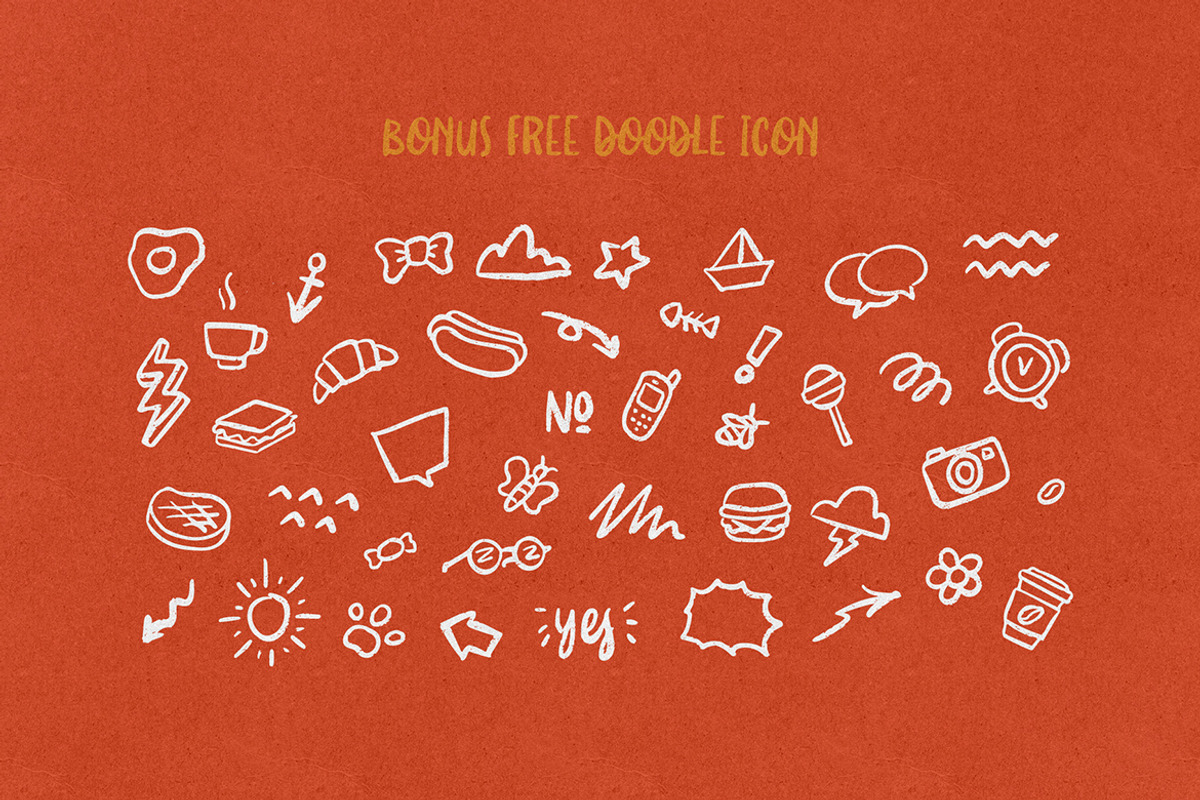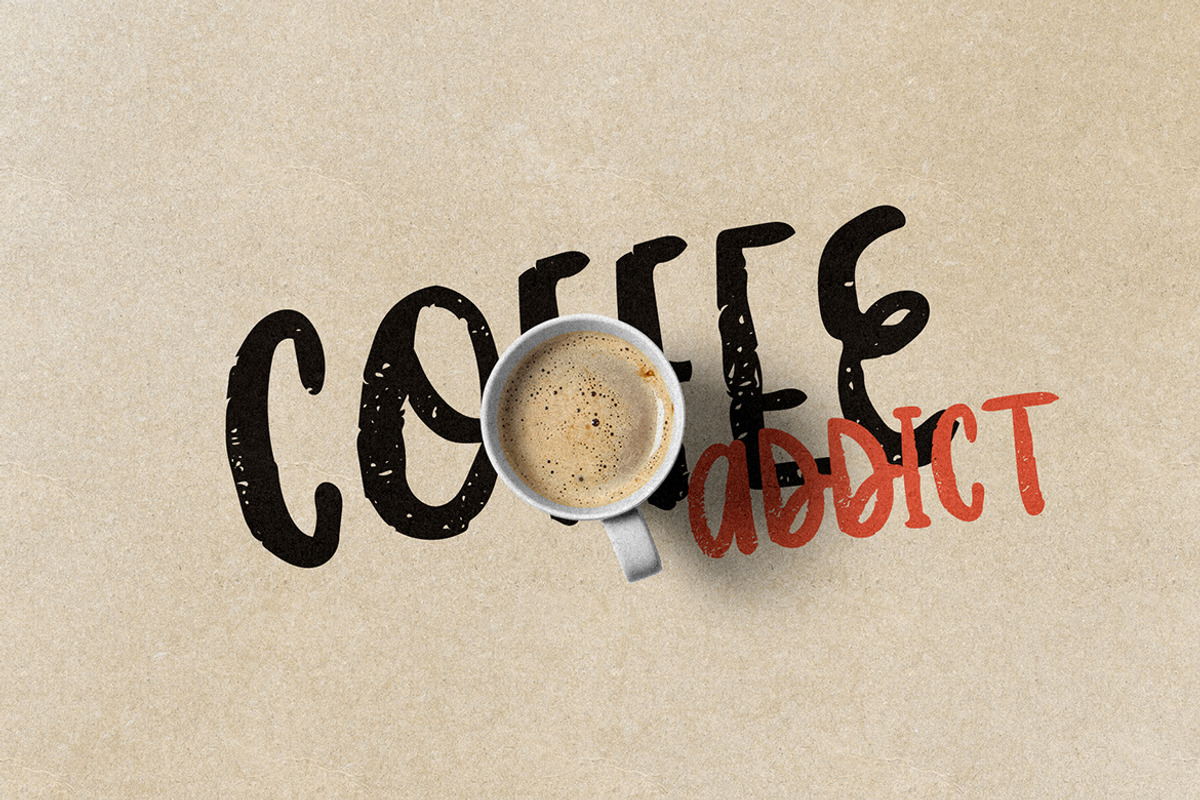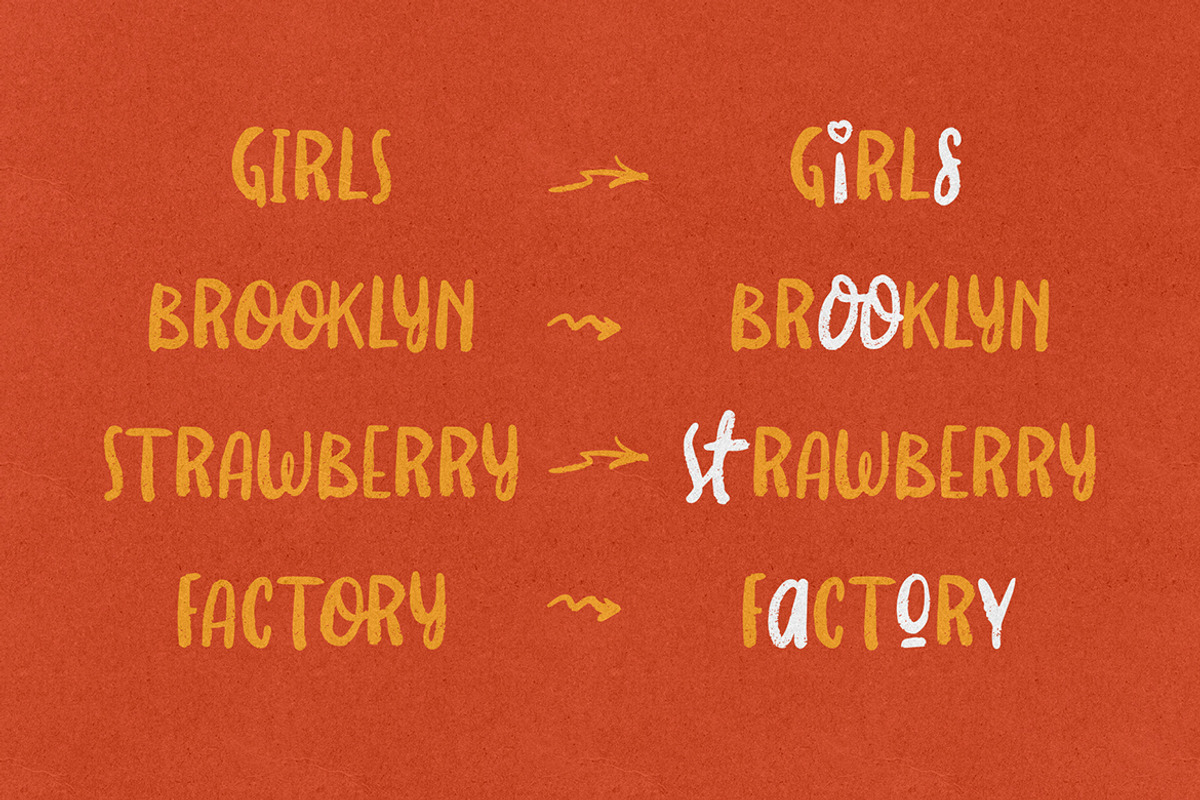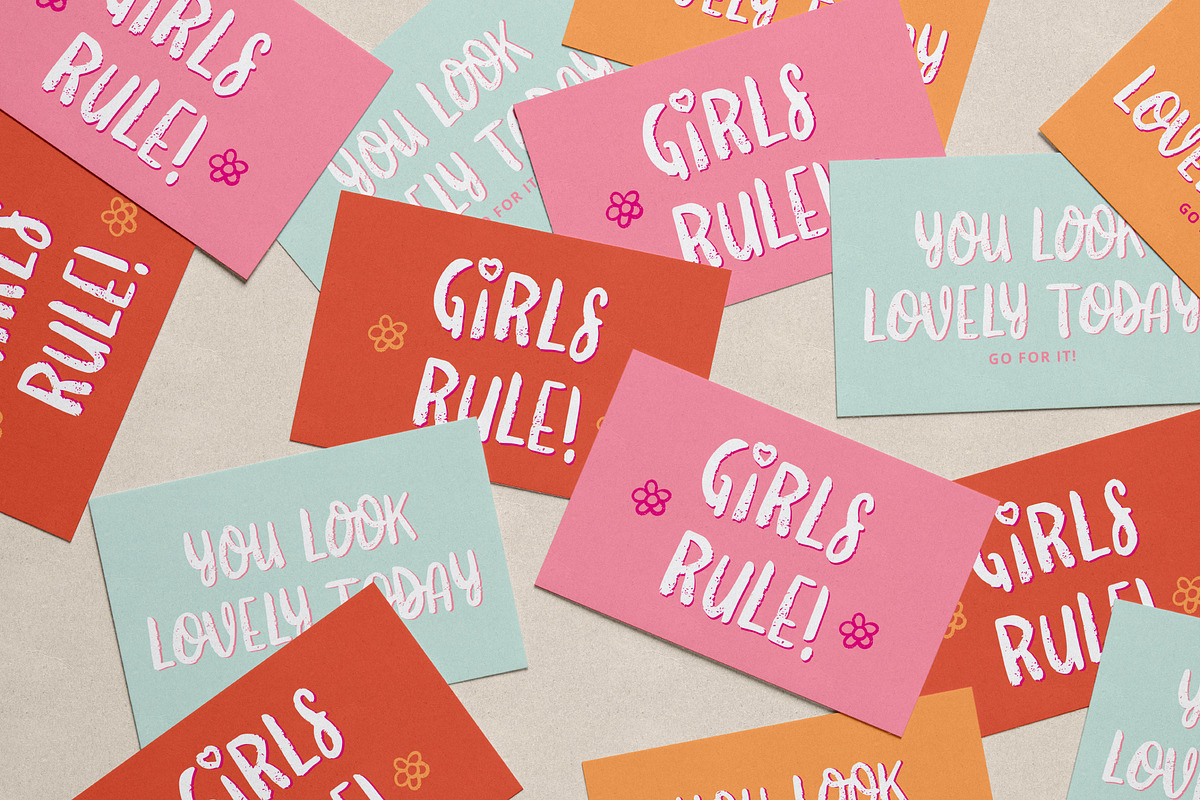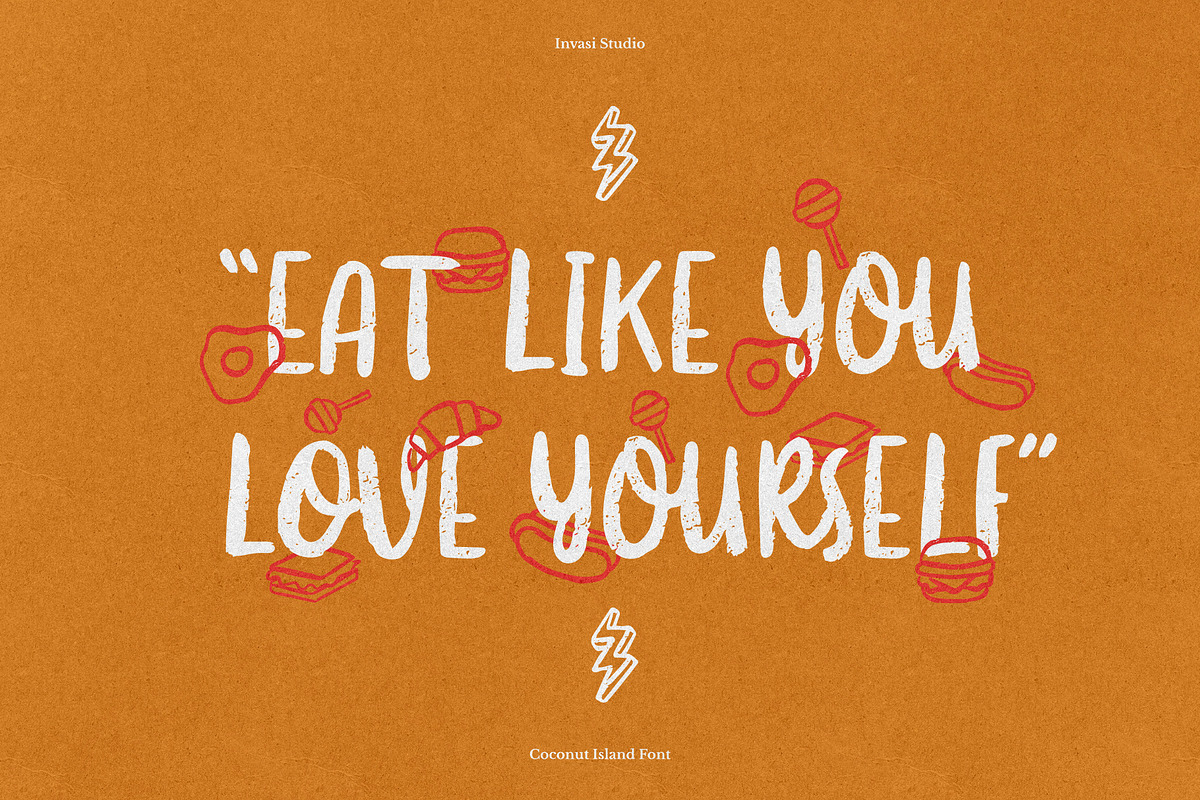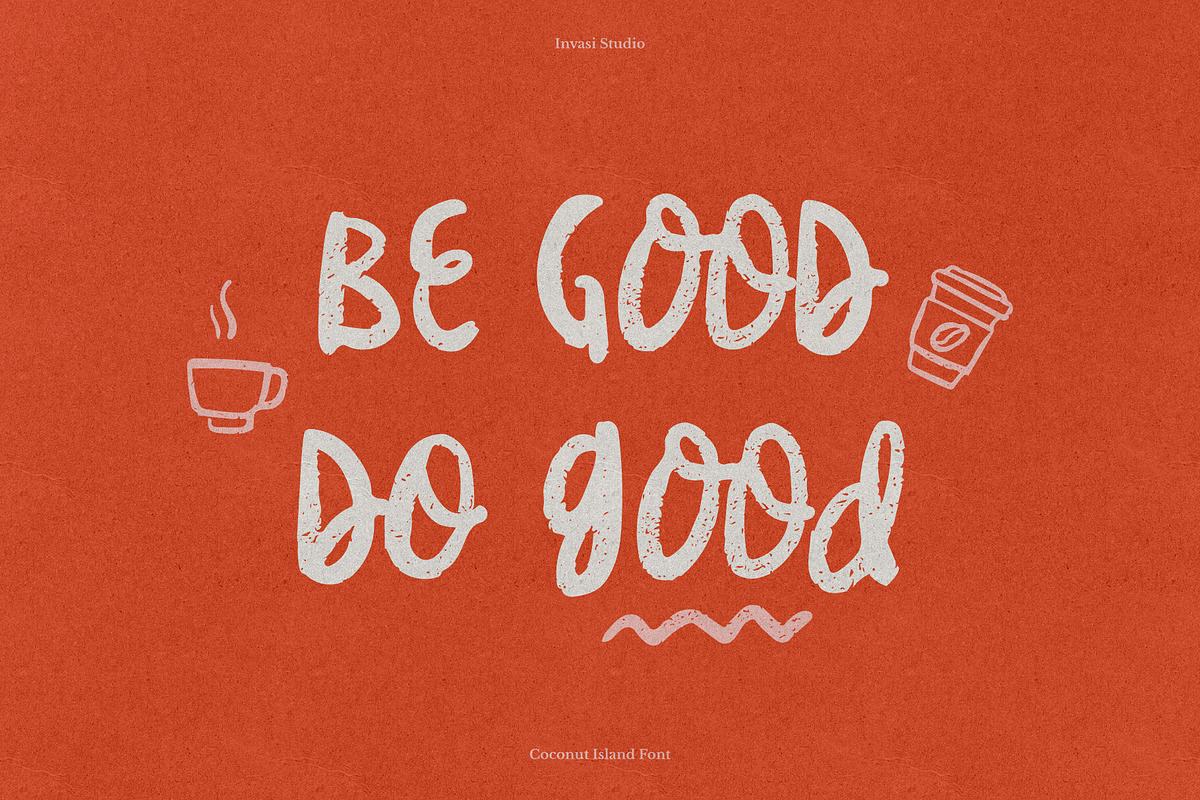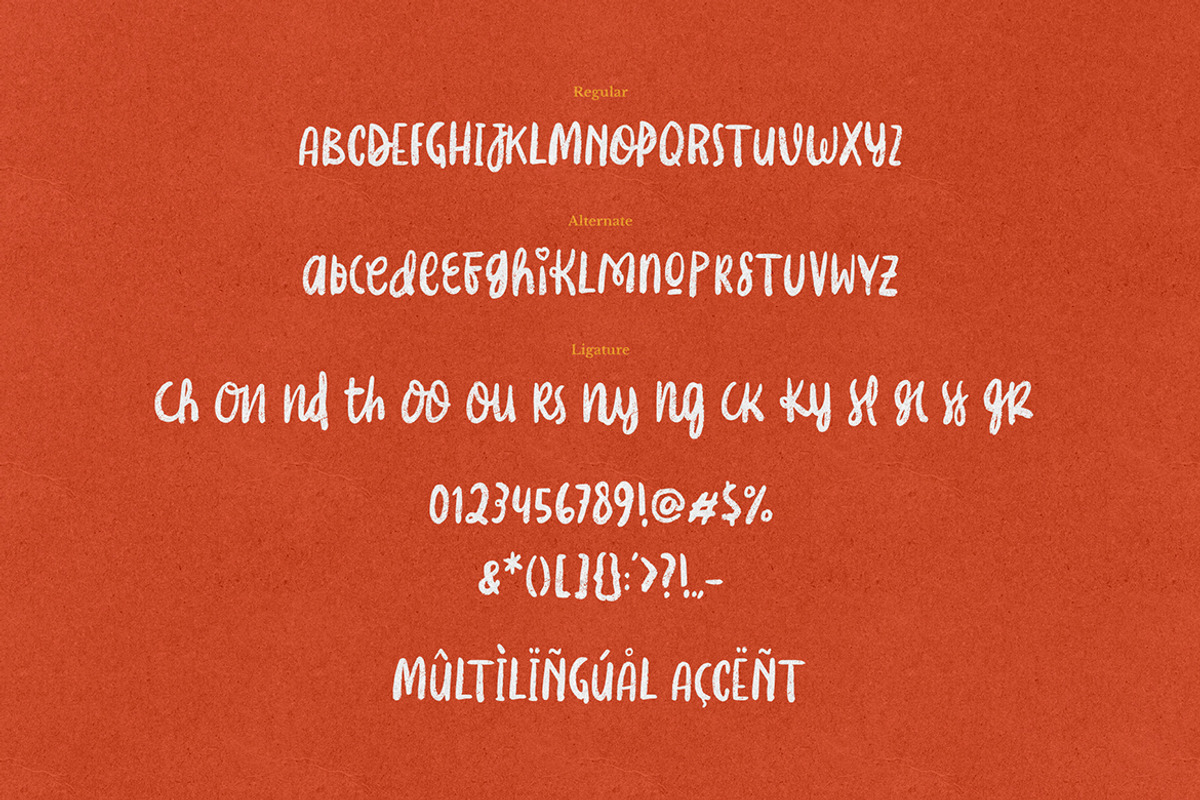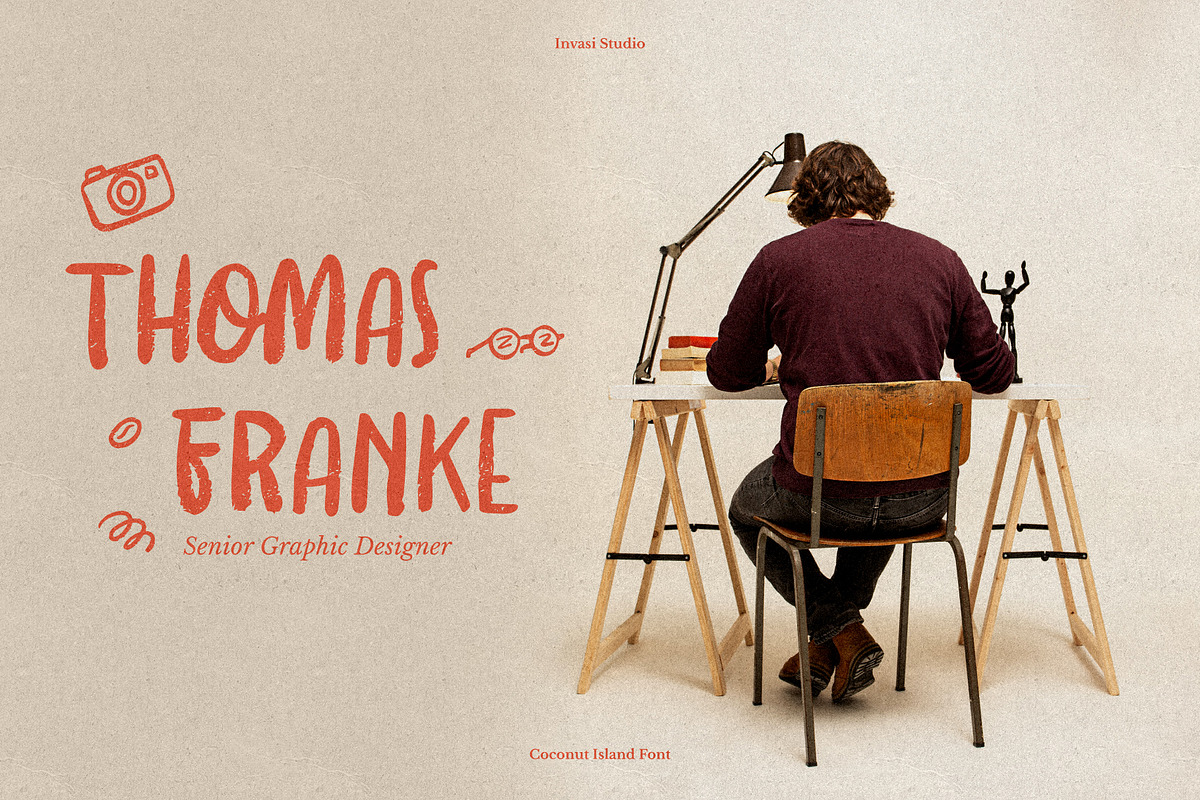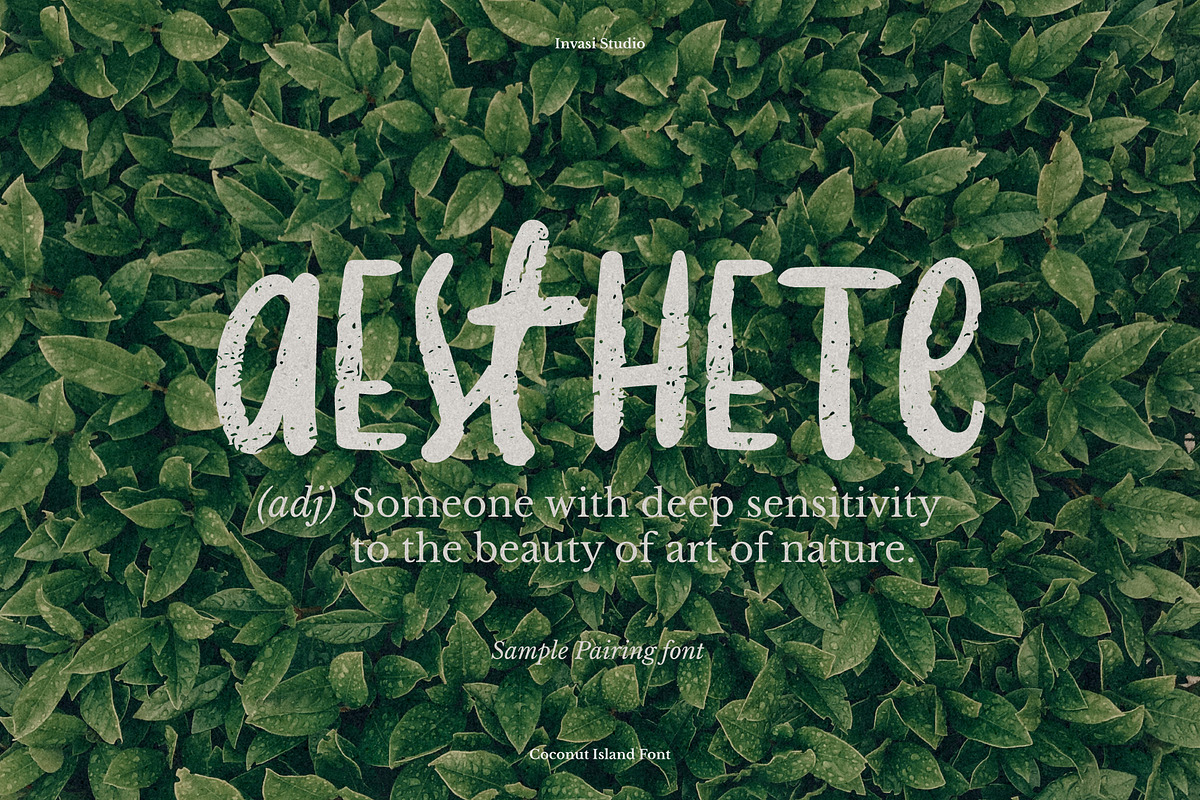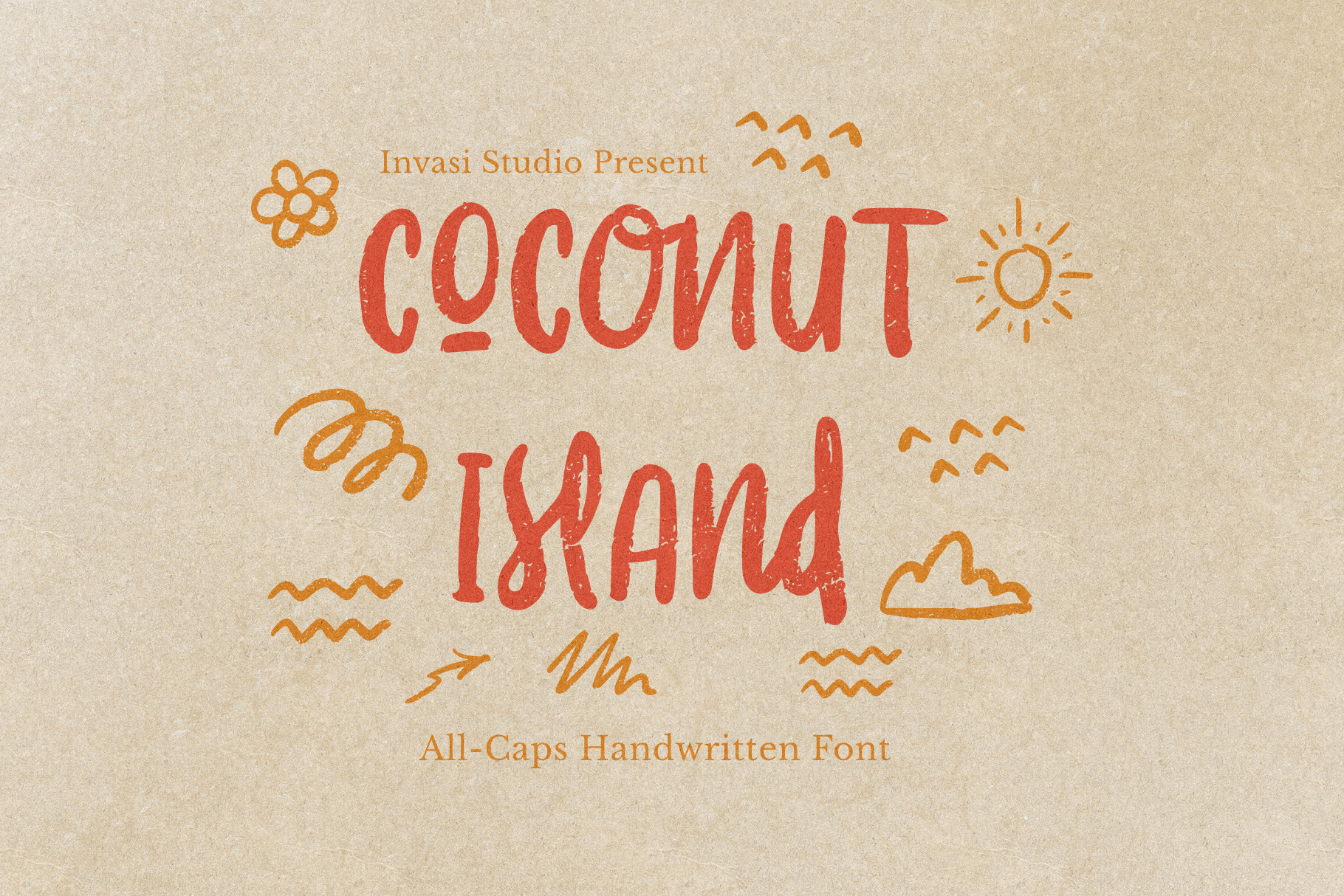
Coconut Island | Display Font
Introduction of our new Display Font. A Coconut Island Font is an All-caps display font with a Handwriting Brush style font, special for your Display or Headline Design, which puts a bold on your projects and will inspire you to create something unique or playful design.
Coconut Island Font will help you to create special and touching typographical designs for your display quote projects, it is perfect for headings, flyers, greeting cards, product packaging, book cover, printed quotes, logotype, apparel design, album covers.
- Multilanguage